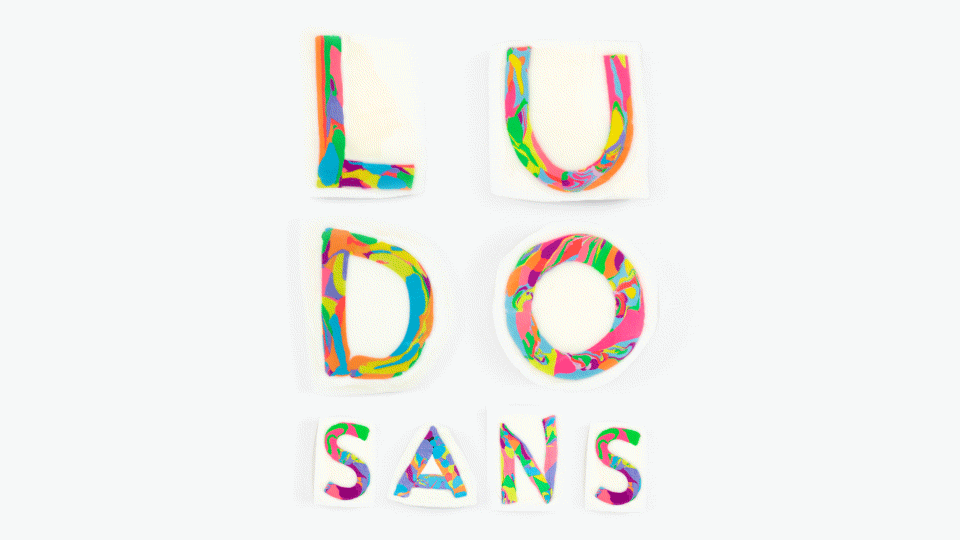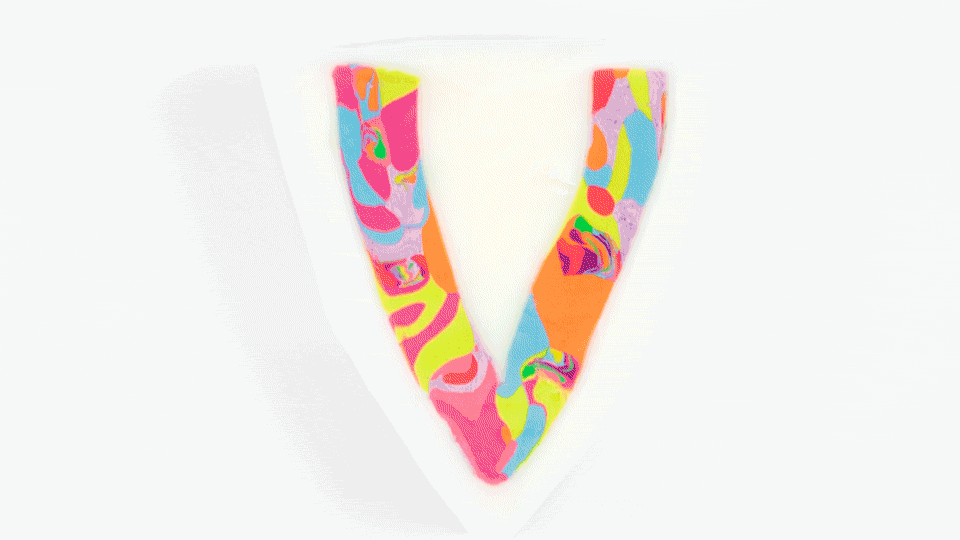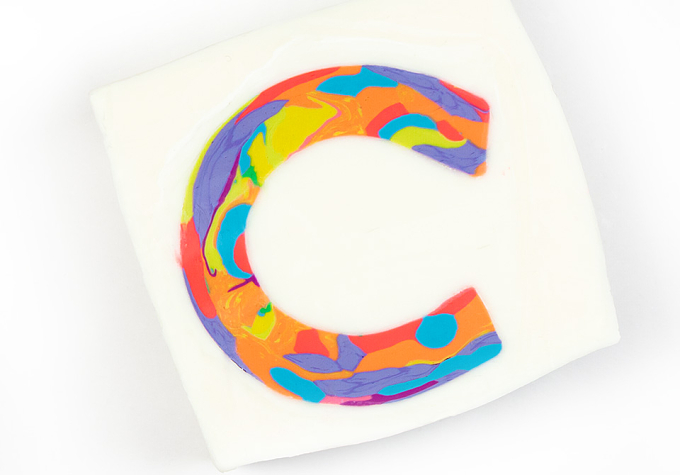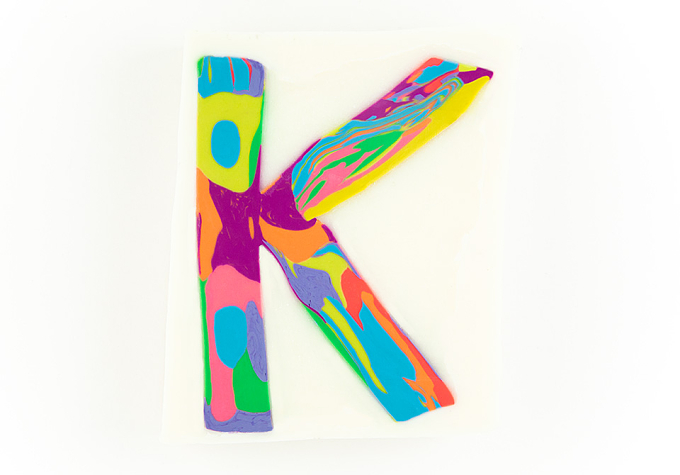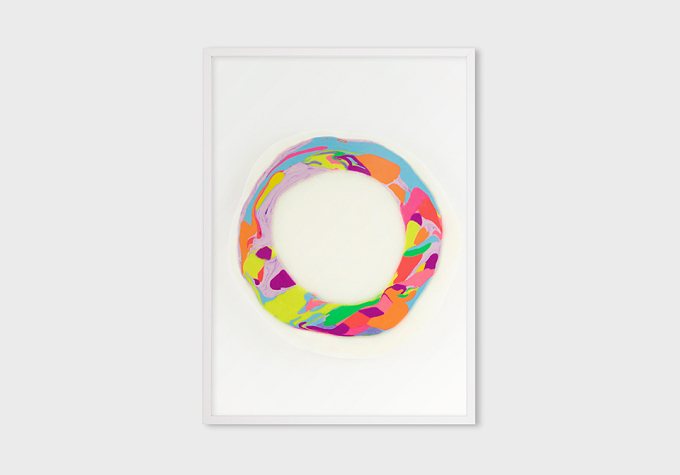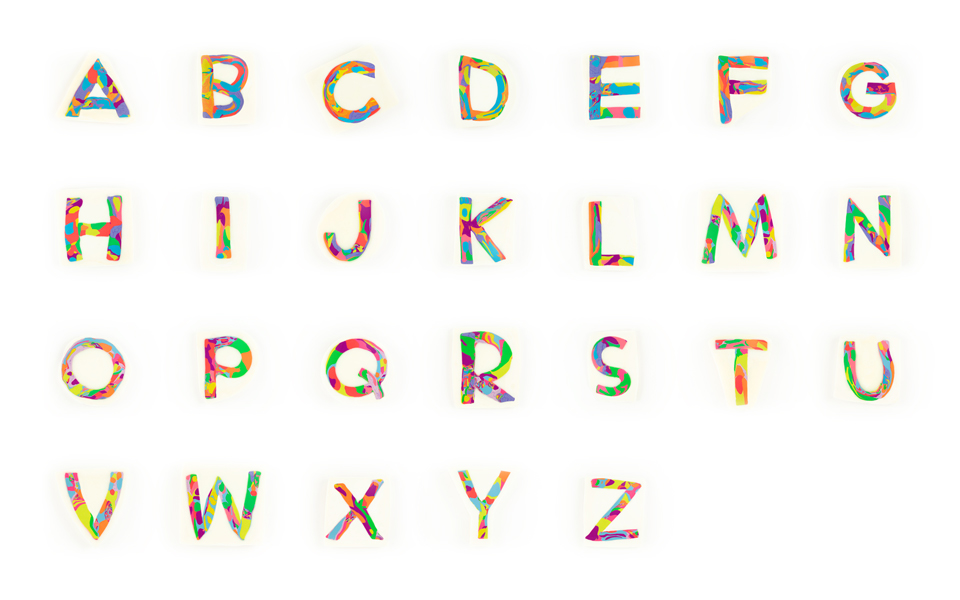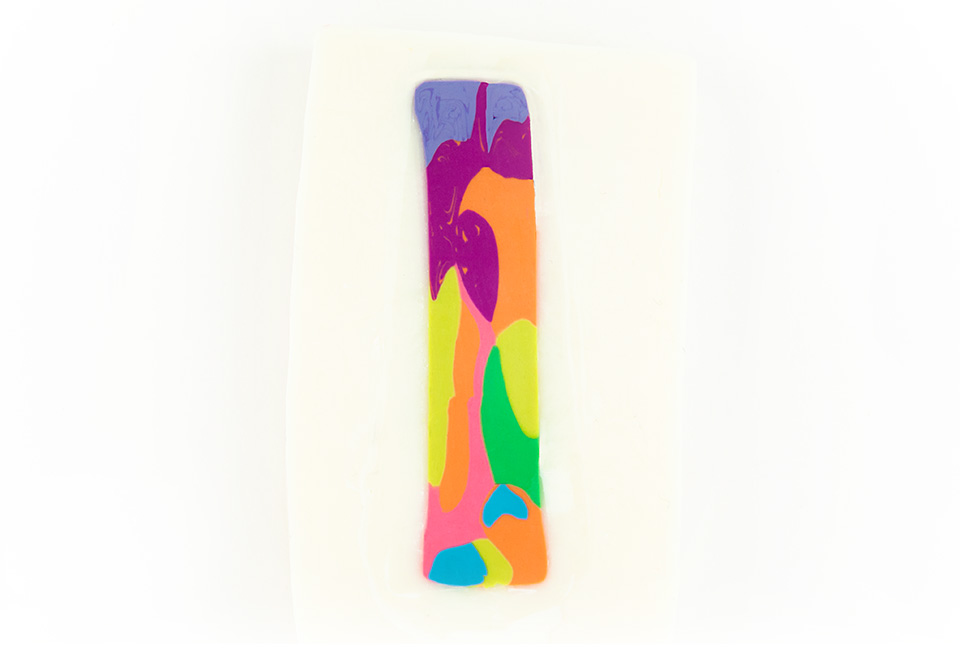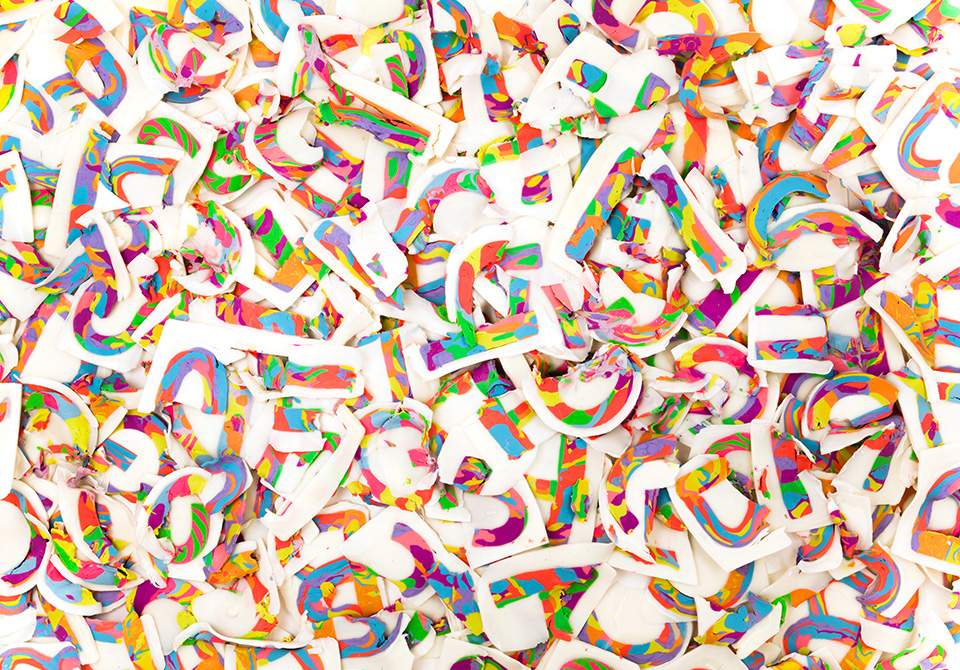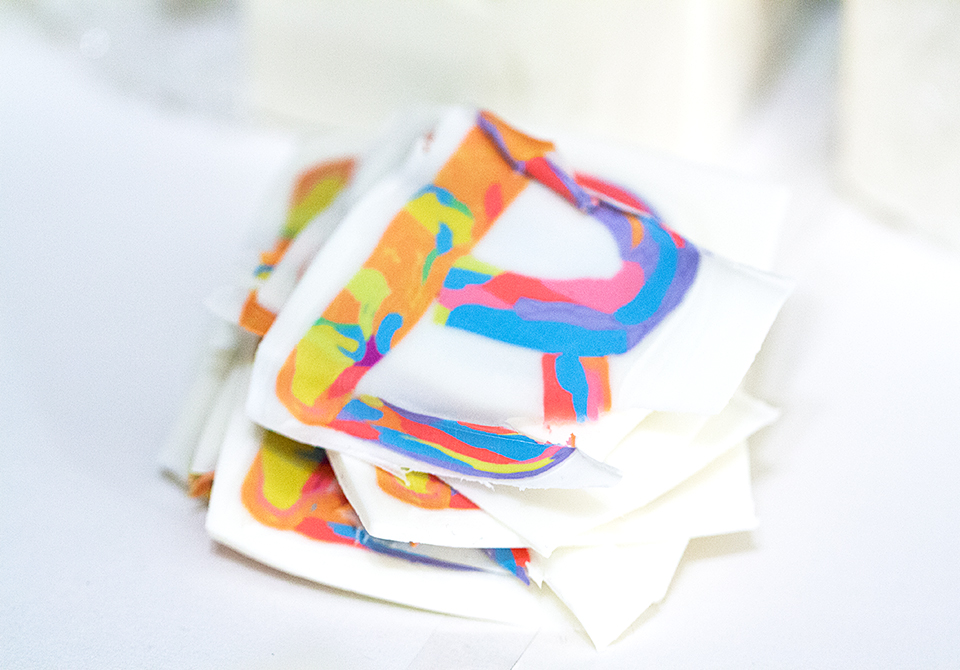
LudoSans is a handcrafted Font.
Using the Strata-Cut technique, the characters move and change in colour and pattern bringing a level of playfulness and fun, that is unique to the process.
Strata-Cut is a form of stop motion animation invented in the 20s and 30s by Oskar Fischinger, refined in the 80s by David Daniels. In this instance, the typeface is modeled out of multi coloured strands of plasticine into a long length of ‘loaf’ that is sliced very thinly. Each slice is recorded by the camera, and when the frames play sequentially, the typeforms organically evolve. A collaboration with David Luepschen